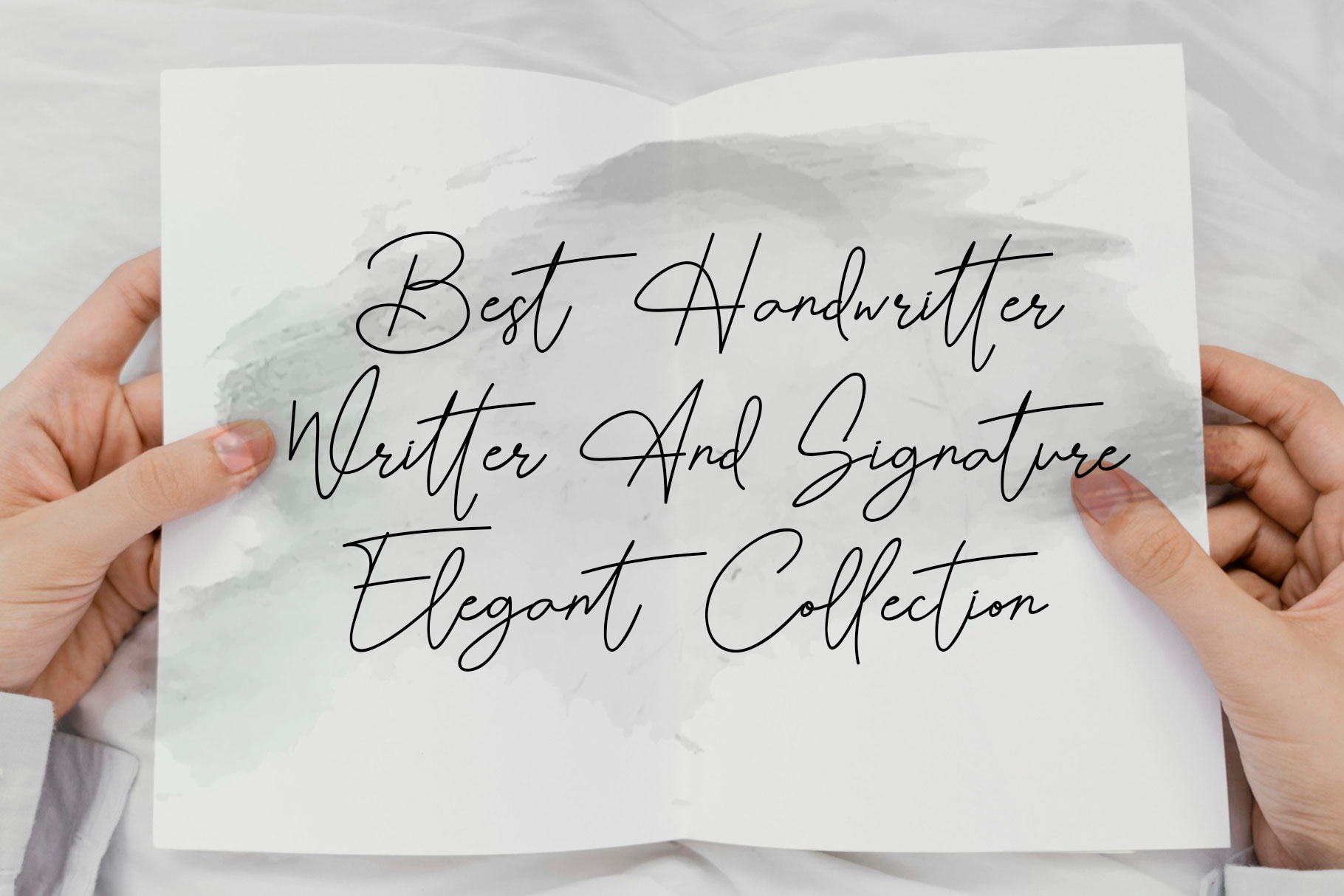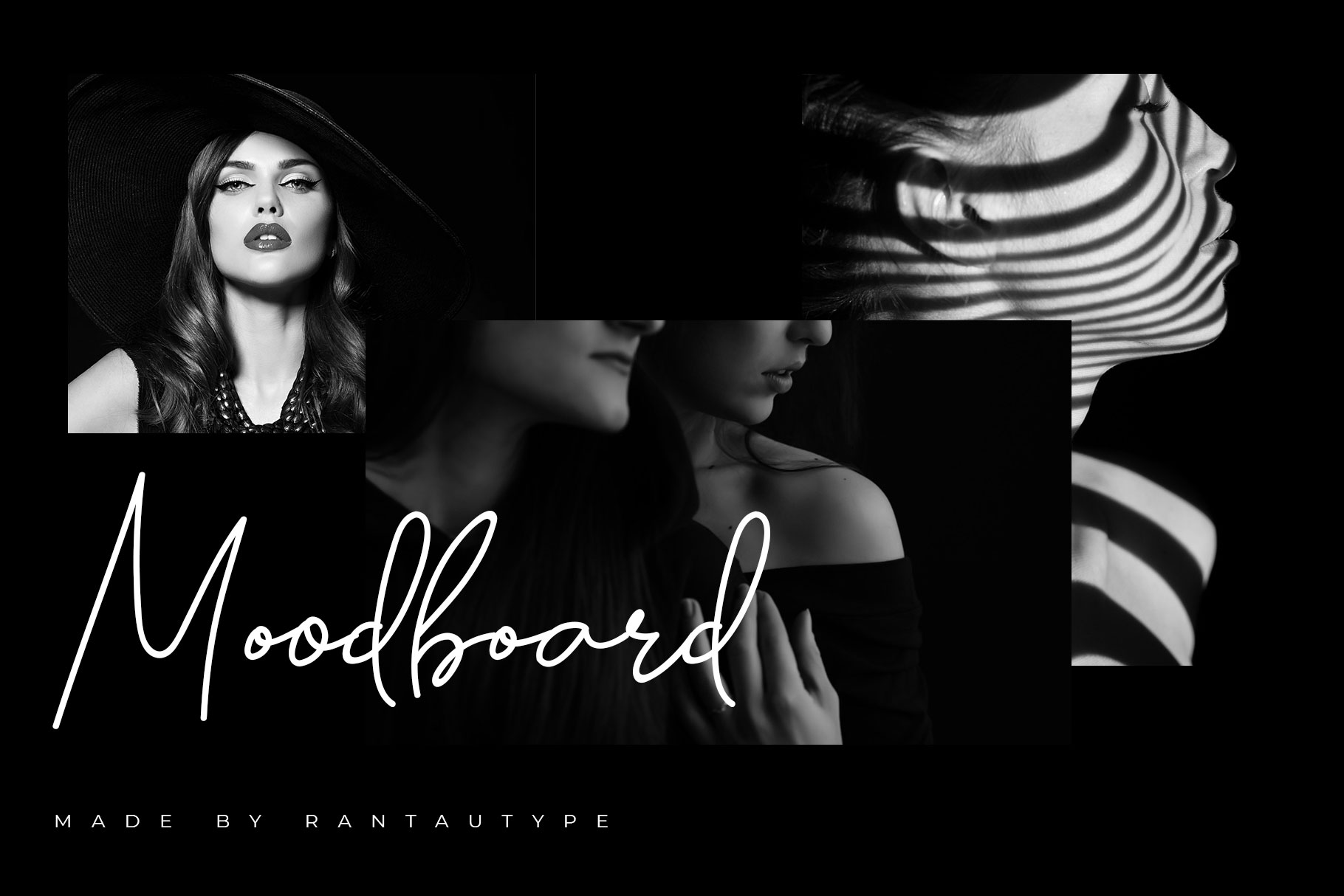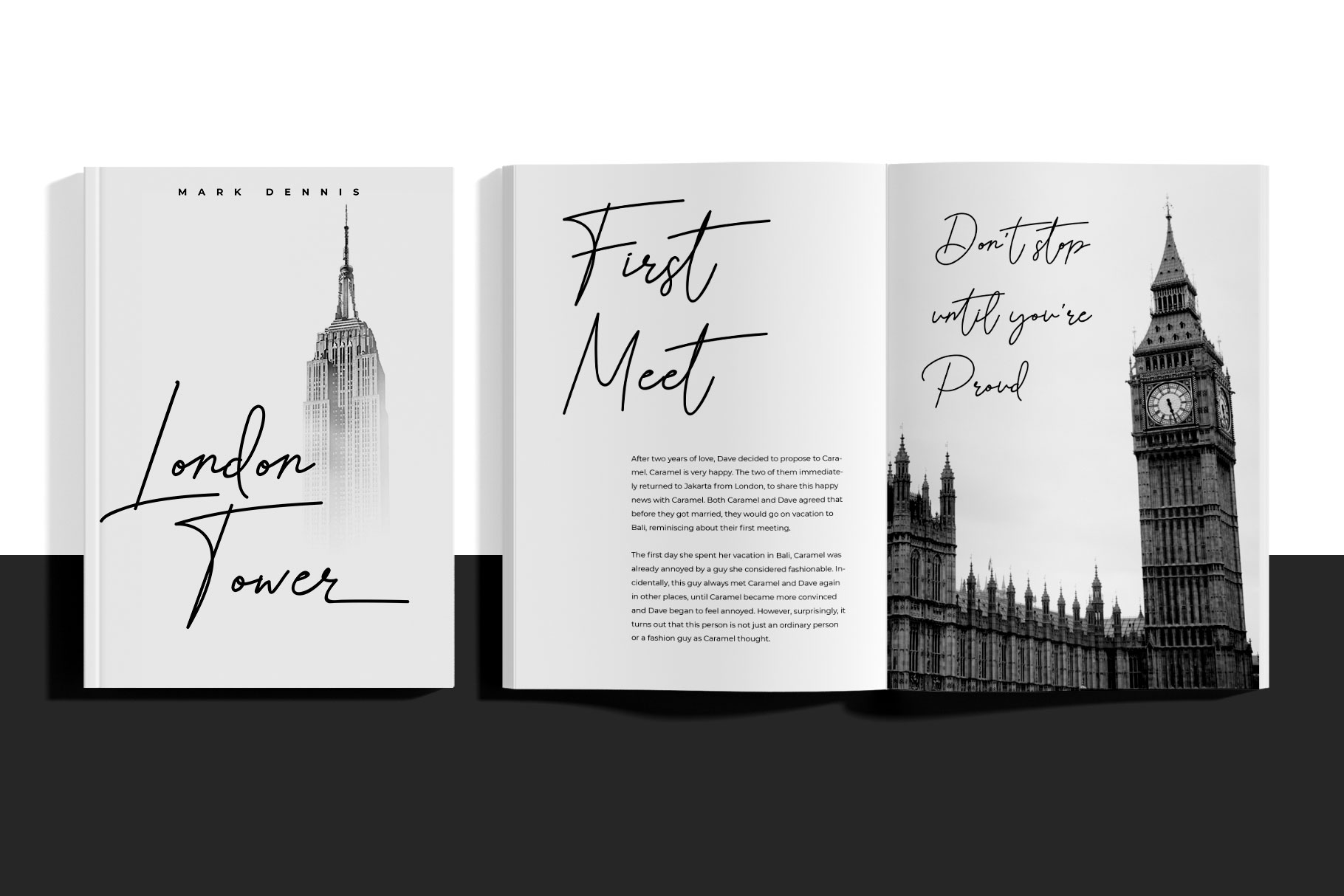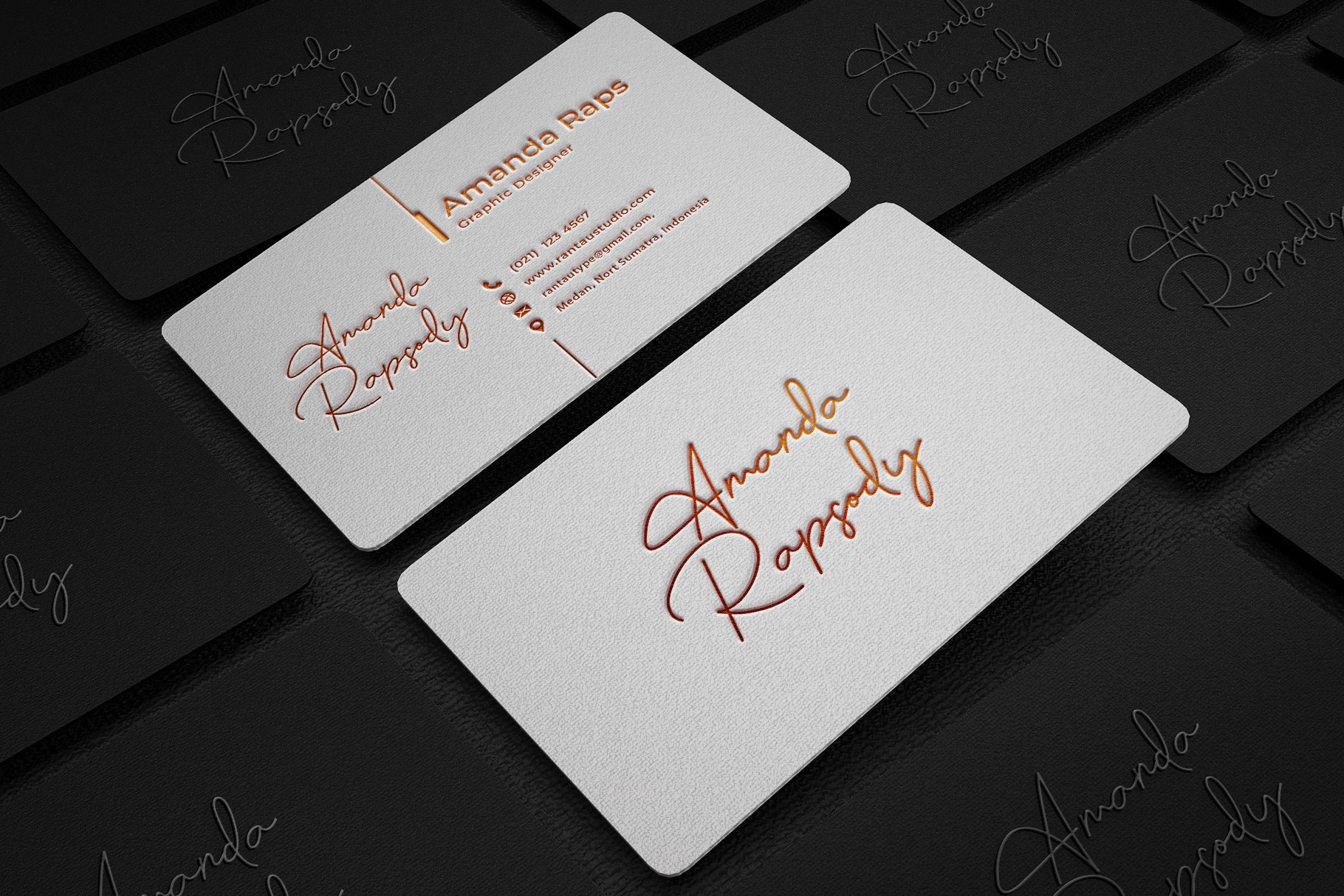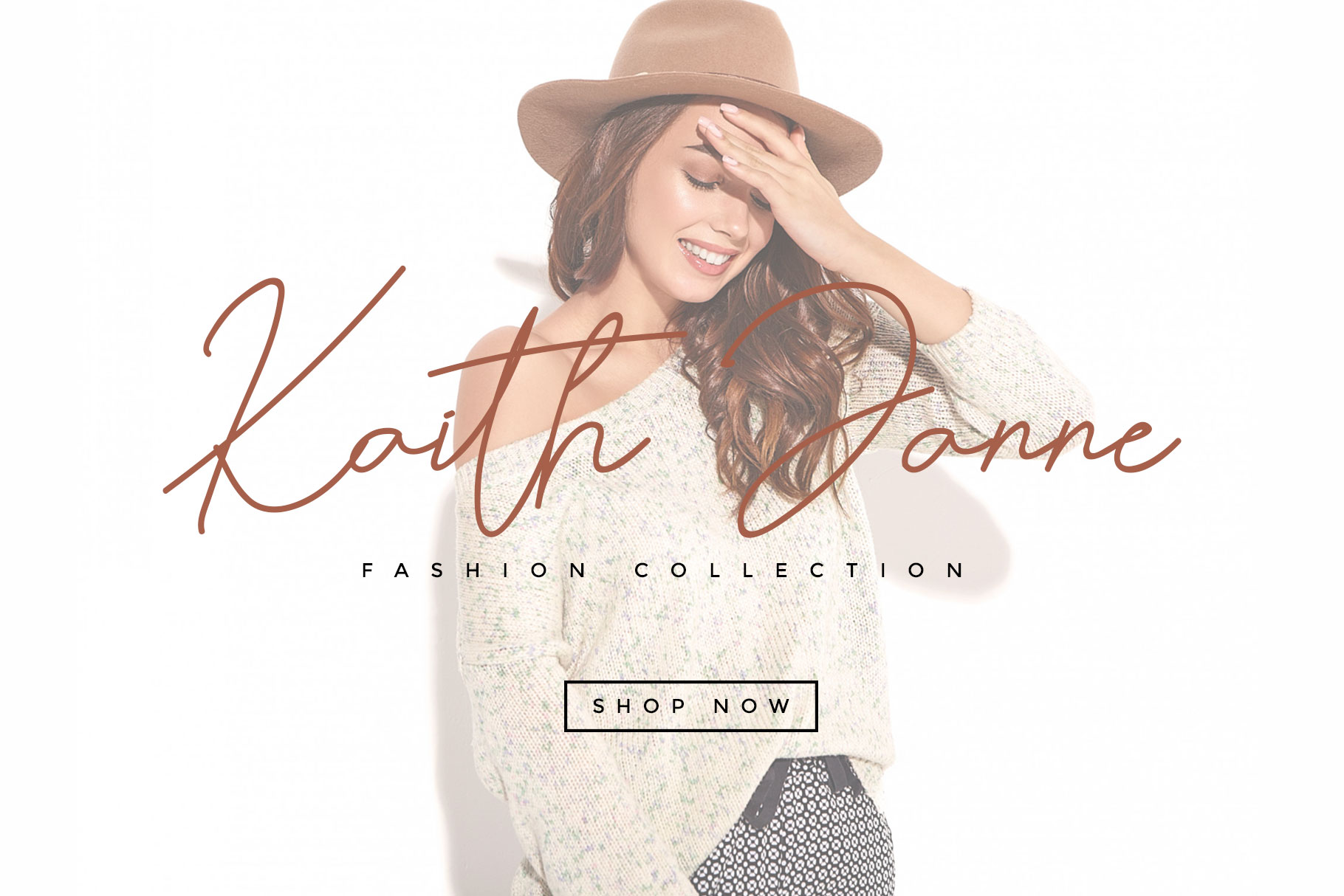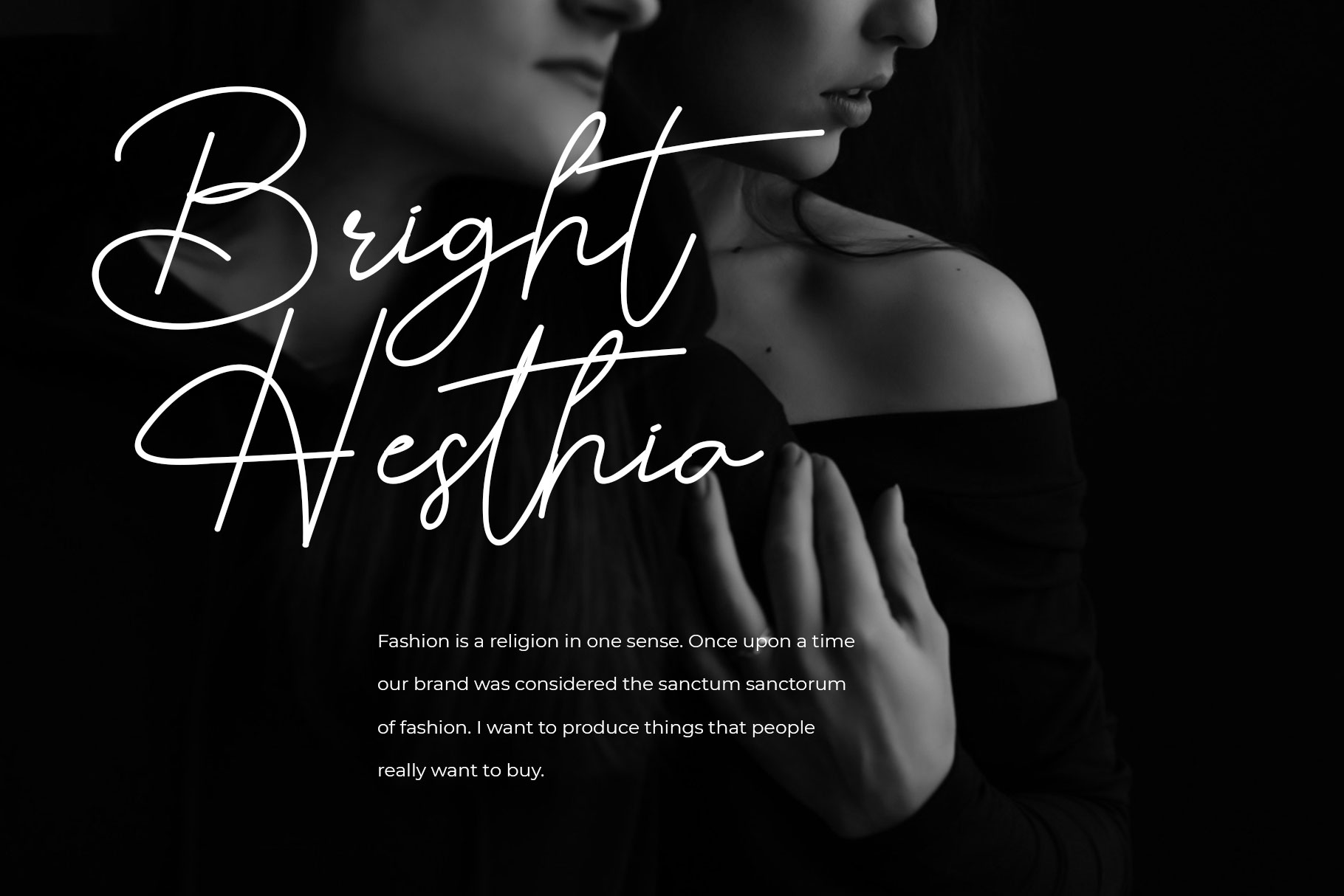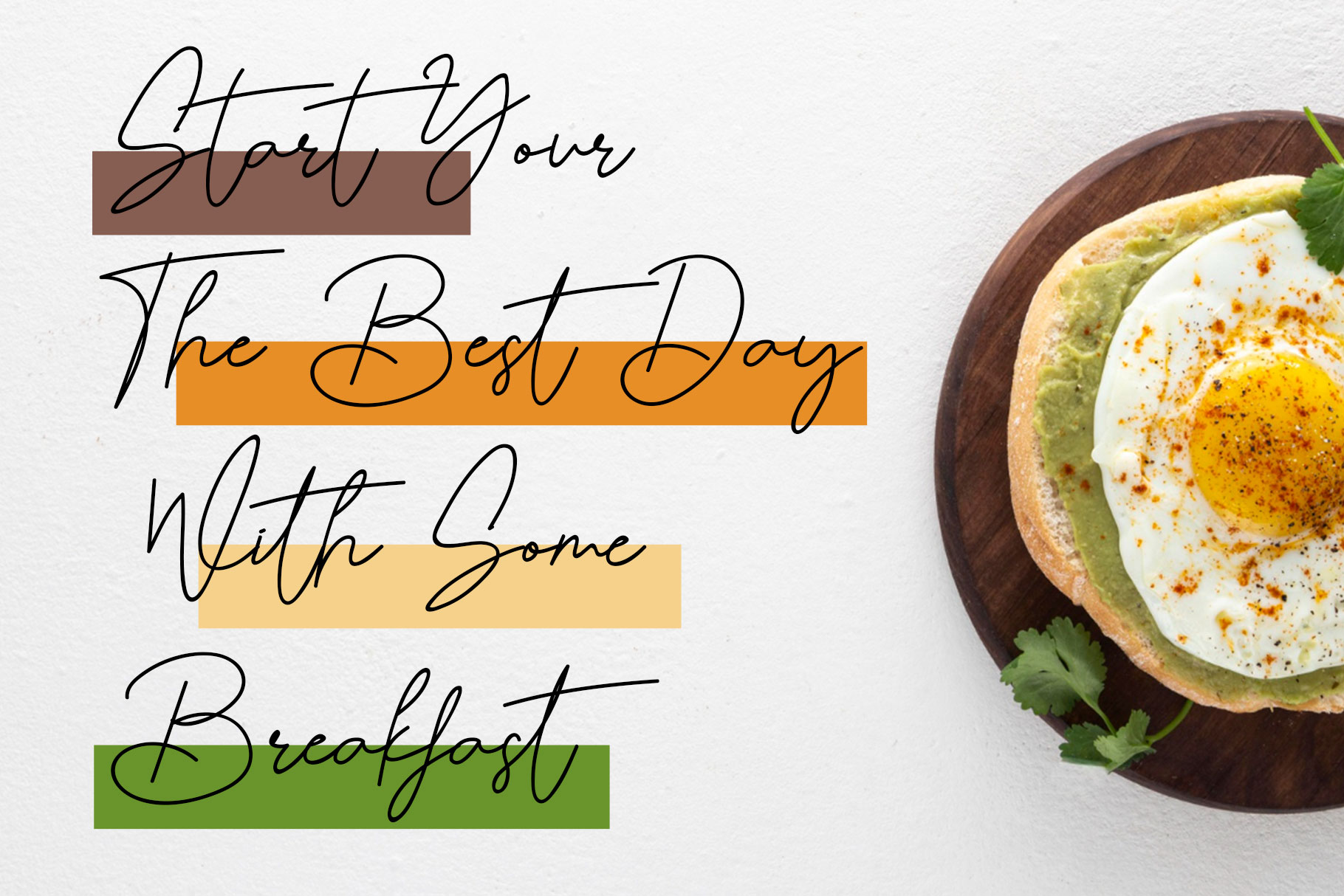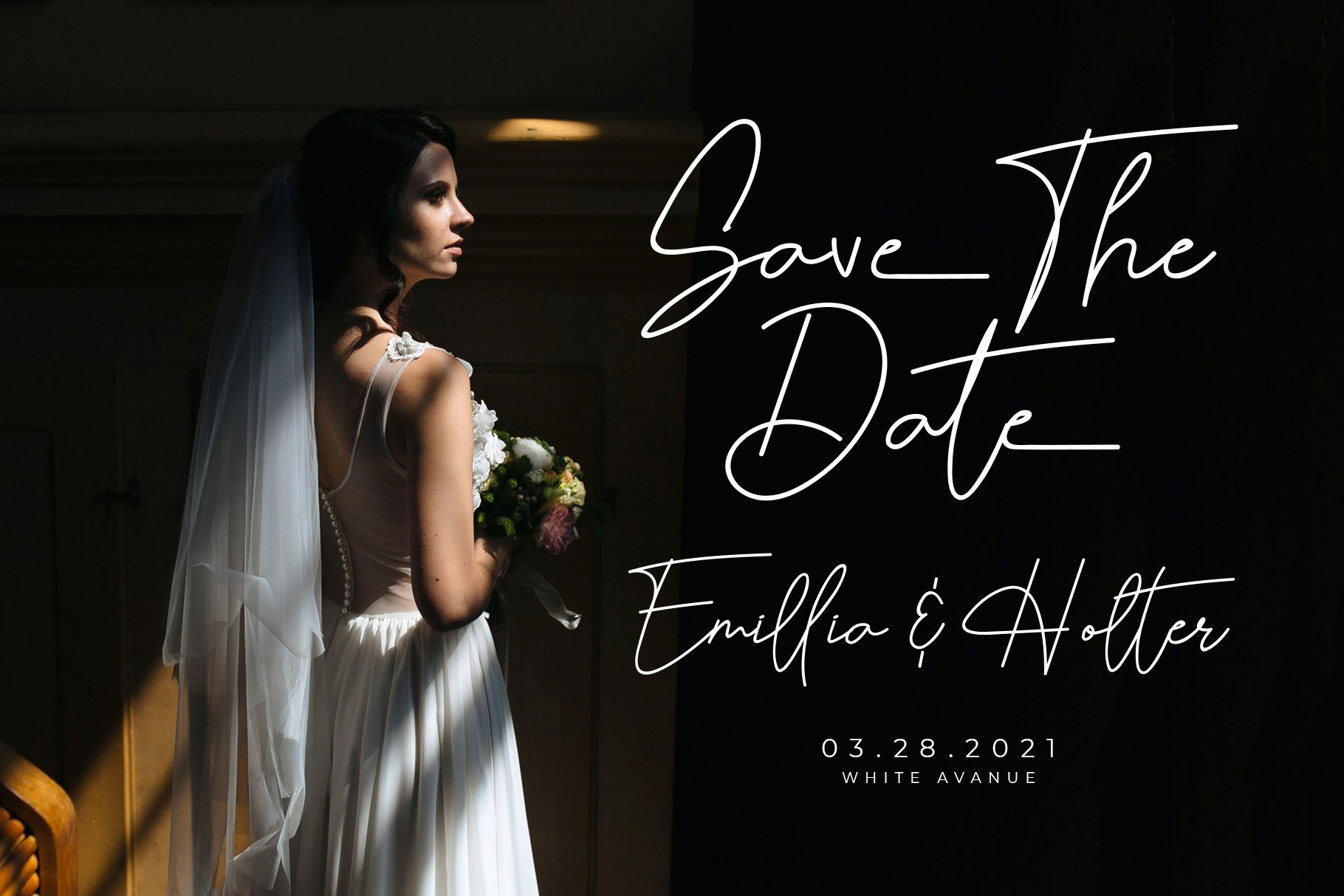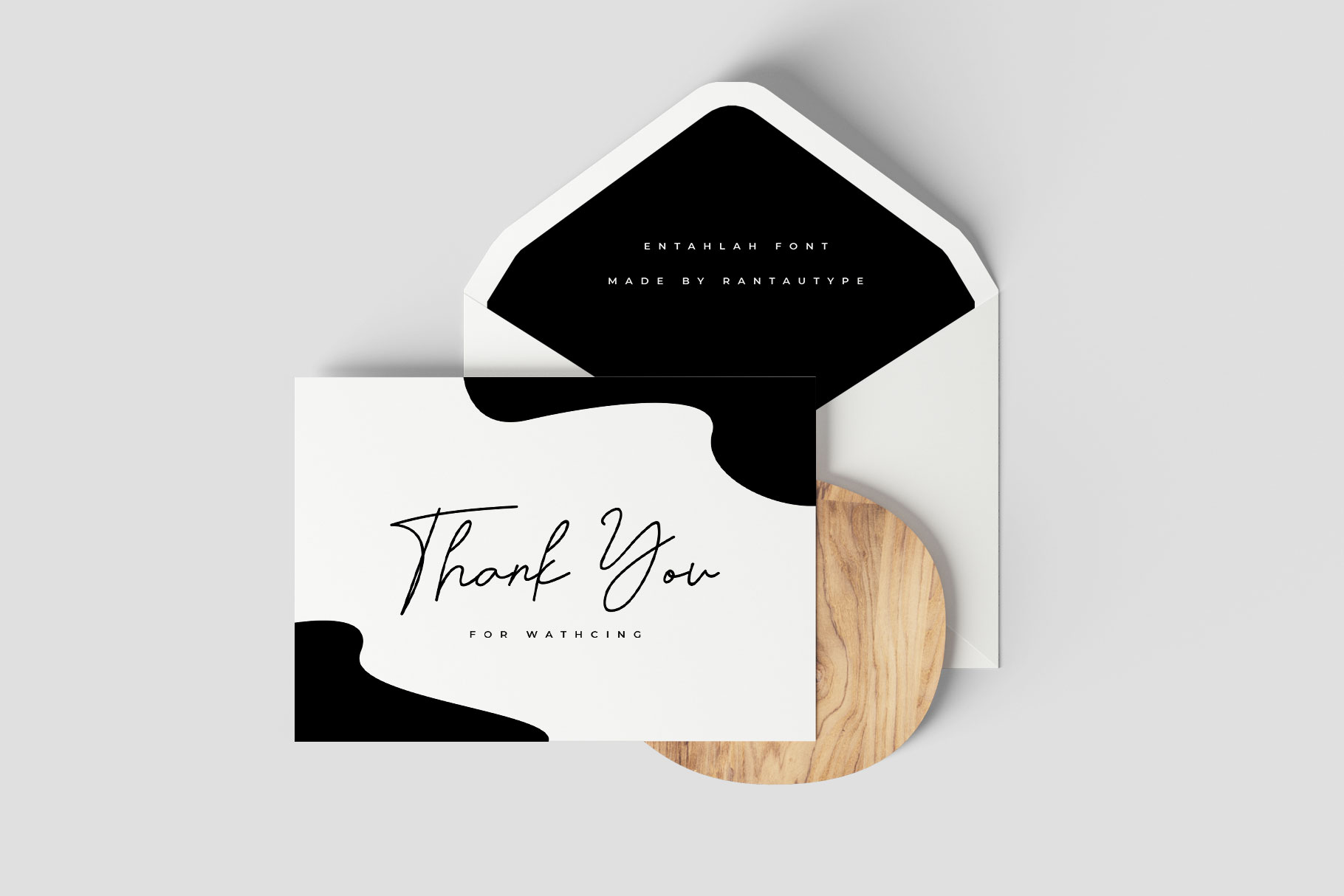
Entahlah Signature Font
Introducing a new clean handwritting & signatures script called Entahlah. Entalah came with open type features such contextual alternates, stylistic alternates, ligature, good for signature logo, wedding invitation, romantic quote, logotype, poster, social media kit, book cover, tshirt design, packaging and any more.
• Standart letter A-Z and a-z
• Ligatures and alternate